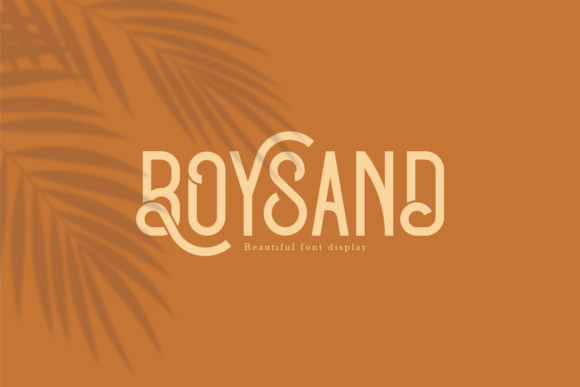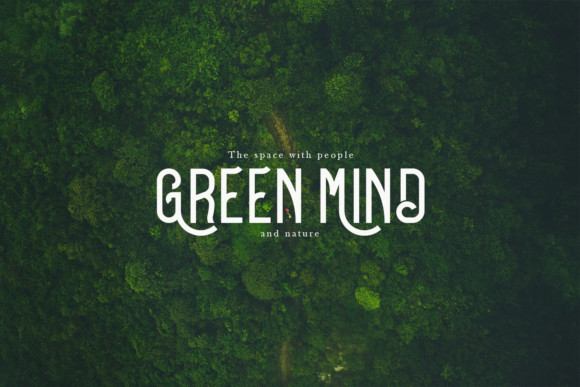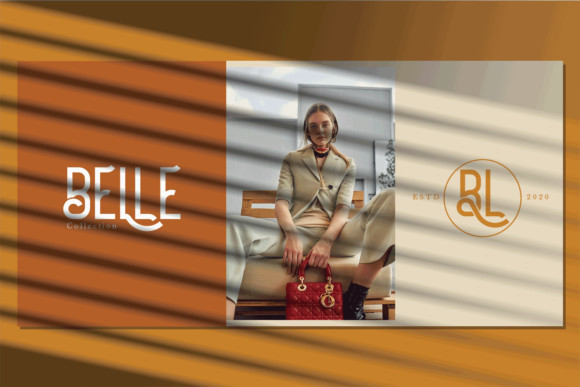
Boysand Font
Boysand features an equally nostalgic and modern style, and comes with uppercase, lowercase, and ligatures, providing you limitless design possibilities!